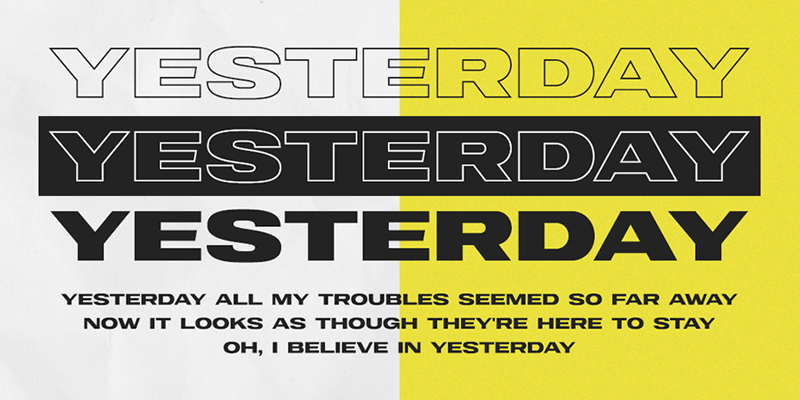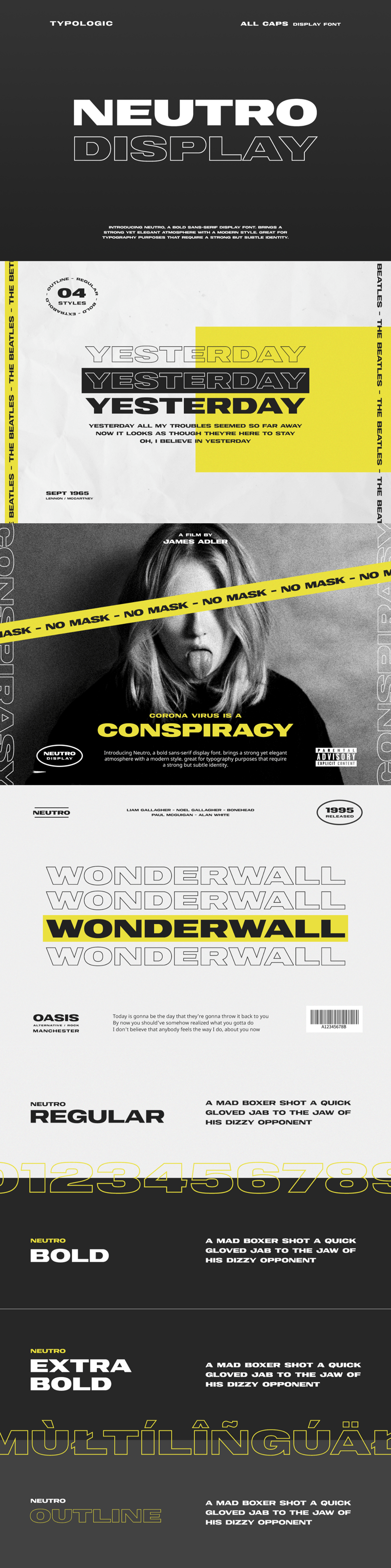
Sans-Serif Display Font
Neutro is a neat bold display font featuring 3 weights and one outline version, extraordinary for typography purposes that require a solid but inconspicuous personality. Find out more display fonts here.
1. Sans-serif
2. All caps display font
3. Modern style